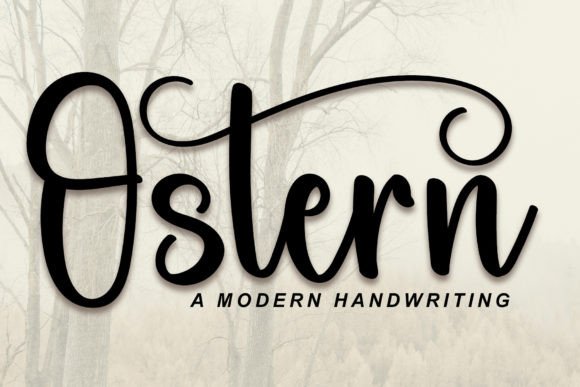
Looking for the perfect fonts to add elegance and charm to your wedding signs? Look no further than Ostern Font, a stunning script font created by Bintang Studio. With its stylish handwritten design and contemporary atmosphere, Ostern Font is guaranteed to captivate and elevate your projects.
Inspired by the timeless beauty of classic calligraphy, Ostern Font brings a touch of sophistication to any design. Its impeccable form and balanced curves make it an ideal choice for creating visually stunning wedding signs. Whether you're designing invitations, place cards, or table numbers, this font will effortlessly enhance the beauty of your creations.
Ostern Font is more than just a font – it's an emotional experience. Its flowing strokes and graceful loops evoke a sense of romance and enchantment, perfect for capturing the essence of your special day. Imagine the joy on your guests' faces as they admire the meticulously crafted lettering that adds a touch of magic to your wedding décor.
Not only does Ostern Font exude elegance, but it also offers versatility. Its script style allows for seamless integration into various design themes, from rustic and bohemian to modern and minimalist. No matter the style of your wedding, this font will effortlessly adapt and enhance the overall aesthetic.
So why settle for ordinary fonts when you can have extraordinary? Let Ostern Font be the secret ingredient that sets your wedding signage apart. With its contemporary yet timeless appeal, this font promises to elevate your designs and evoke emotions that words alone cannot express.